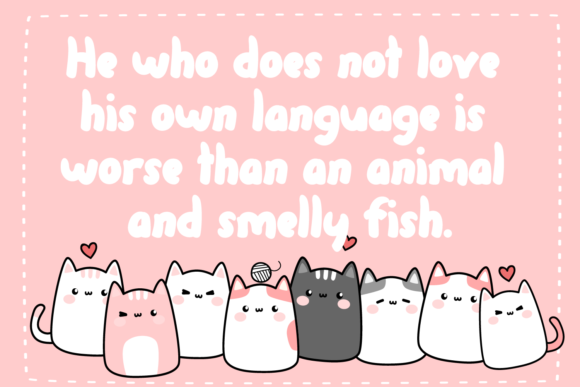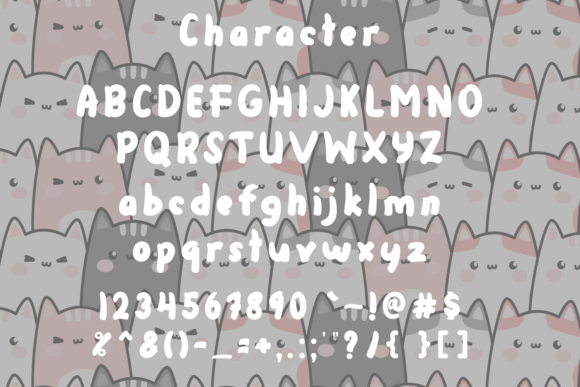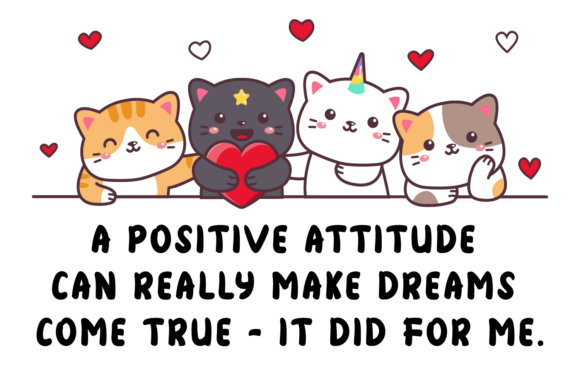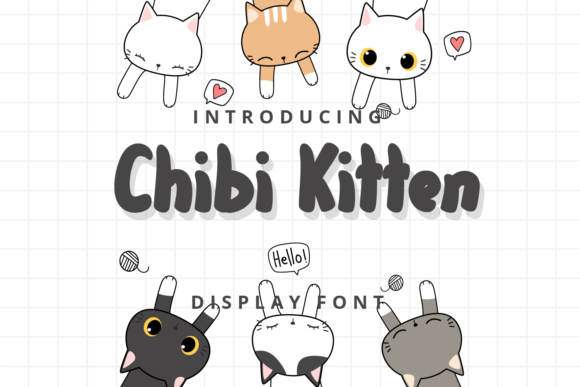
Introducing Chibi Kitten Font: The Purrfect Addition to Your Design Collection
Are you tired of using the same old fonts in your designs? Look no further! Chibi Kitten Font is here to add a touch of fun and cuteness to your projects. This display font is perfect for anyone looking to create casual and playful designs that will capture the attention of their audience. In this article, we’ll dive into the world of Chibi Kitten Font and explore its features, uses, and benefits.
What is Chibi Kitten Font?
Chibi Kitten Font is a fun and cute display font designed to fit perfectly into any casual design idea. Its playful and whimsical style makes it ideal for a wide range of projects, from quotes and shirt designs to websites, branding, children’s designs, blogs, logos, invitations, and more!
Key Features of Chibi Kitten Font
- Playful and Whimsical Style: Chibi Kitten Font boasts a unique and adorable design that will add a touch of fun to your projects.
- Highly Versatile: This font is perfect for a wide range of design projects, from digital to print.
- Easy to Read: Despite its playful style, Chibi Kitten Font is easy to read, making it perfect for quotes, titles, and headings.
- Scalable: This font is highly scalable, ensuring that it looks great on any device or platform.
Uses of Chibi Kitten Font
Chibi Kitten Font is perfect for a variety of design projects, including:
- Quotes and Inspirational Messages: Add a touch of fun and inspiration to your quotes and messages with Chibi Kitten Font.
- Shirt Designs and Merchandise: Create eye-catching shirt designs, tote bags, and other merchandise with this adorable font.
- Websites and Blogs: Add a playful touch to your website or blog with Chibi Kitten Font.
- Branding and Logos: Use this font to create unique and memorable logos and branding materials.
- Children’s Designs: Chibi Kitten Font is perfect for designing children’s books, posters, and other materials.
- Invitations and Party Decor: Add a touch of whimsy to your invitations, party decor, and other celebratory materials.
Benefits of Using Chibi Kitten Font
By using Chibi Kitten Font in your designs, you’ll enjoy several benefits, including:
- Unique and Eye-Catching Designs: This font will help your designs stand out from the crowd and grab attention.
- Emotional Connection: The playful and cute style of Chibi Kitten Font will help create an emotional connection with your audience.
- Time-Saving: With Chibi Kitten Font, you can create professional-looking designs in no time.
Tips for Using Chibi Kitten Font
To get the most out of Chibi Kitten Font, follow these tips:
- Pair with Other Fonts: Experiment with pairing Chibi Kitten Font with other fonts to create unique and interesting combinations.
- Use in Moderation: While Chibi Kitten Font is adorable, it’s essential to use it in moderation to avoid overwhelming your design.
- Experiment with Colors: Play around with different colors to find the perfect match for your design.
Chibi Kitten Font is a fun and cute display font that’s perfect for adding a touch of whimsy to your designs. With its playful style, versatility, and ease of use, this font is ideal for designers and crafters looking to create unique and eye-catching projects. Whether you’re working on a quote, shirt design, website, or branding materials, Chibi Kitten Font is sure to delight. So why wait? Download Chibi Kitten Font today and start creating adorable designs that will capture the hearts of your audience!